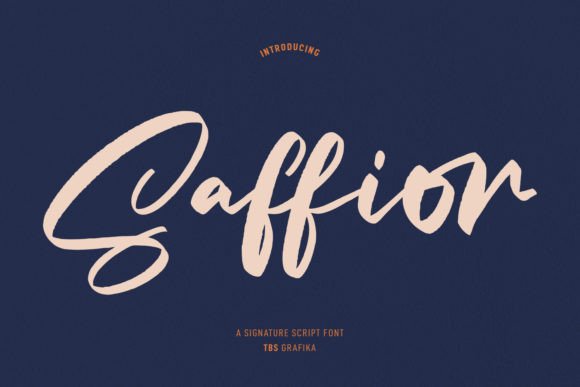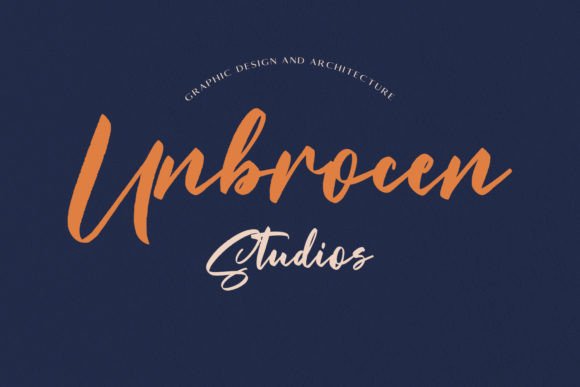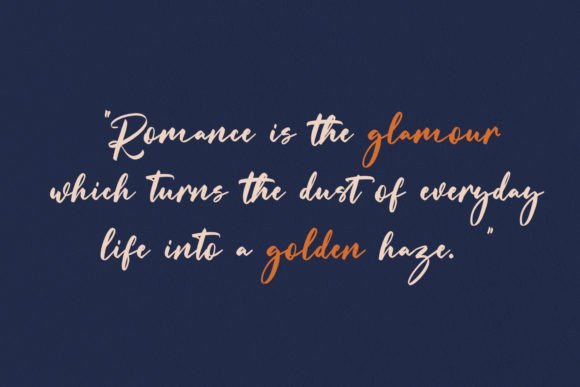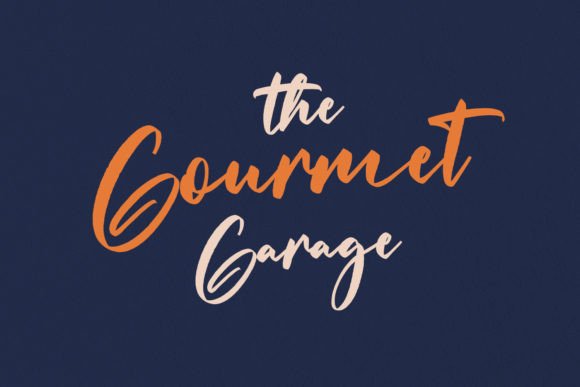
About Saffior Font
Introducing “Saffior,” a fancy handwritten font that brings bold brush contrast strokes, playful characters with ligatures, and alternates to enhance your creative work. With its unique features, Saffior is well-suited for a variety of design projects, including logo design, social media, movie titles, book titles, short and long text, as well as secondary text paired with sans or serif fonts. Let Saffior be the font that elevates your designs and adds a stunning touch to your creative endeavors.
The bold brush contrast strokes of Saffior contribute to a visually striking appearance, making it an excellent choice for projects that require a dynamic and impactful design. Whether you’re working on logos, movie titles, or book titles, this font adds a touch of boldness and creativity.
For social media and other digital platforms, Saffior’s playful characters and ligatures enhance the overall visual appeal, making your content stand out with a touch of uniqueness and creativity.
The versatility of Saffior extends to both short and long text, allowing you to use it for various design contexts. Its fancy and handwritten style make it suitable for creating eye-catching headlines as well as providing an engaging secondary text in combination with sans or serif fonts.
Saffior’s alternates and creative features make it a valuable tool for expressing your unique design vision. Whether you’re working on branding, promotional materials, or any project that demands a touch of elegance and creativity, Saffior is designed to help you make stunning and visually captivating work.
In summary, Saffior is more than just a font; it’s a creative asset crafted to bring a fancy and handwritten flair to your projects. Whether you’re designing logos, social media content, or book titles, let Saffior be the font that adds a stunning and distinctive touch to your creative endeavors.